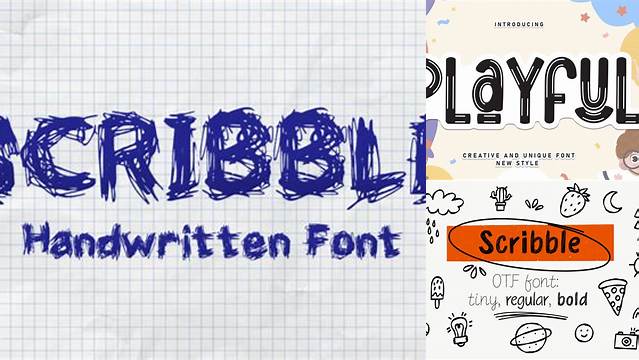
Scribble Fonts: Free Fonts For Playful Designs
Hey guys! Are you looking to inject some fun and whimsy into your design projects? Then you've come to the right place! In this article, we're diving deep into the world of scribble fonts, those delightfully imperfect typefaces that mimic the charm of hand-drawn lettering. These fonts are perfect for adding a personal touch to everything from invitations and posters to social media graphics and branding materials. We will explore what makes scribble fonts so special, different styles available, where you can find them, and how to use them effectively in your projects. So, grab a cup of coffee, settle in, and let's explore the world of scribble fonts!
What Makes Scribble Fonts So Unique?
Scribble fonts possess a unique charm that sets them apart from more traditional typefaces. Their defining characteristic is their hand-drawn aesthetic, which gives them a sense of authenticity and personality. Unlike the clean lines and perfect curves of formal fonts, scribble fonts embrace imperfections, with uneven strokes, playful quirks, and a slightly chaotic feel. This informality makes them ideal for projects that require a touch of humanity and warmth. Think about the last time you received a handwritten note – it likely felt more personal and heartfelt than a typed message, right? Scribble fonts evoke that same feeling, making them a powerful tool for connecting with your audience on an emotional level.
Another key element of scribble fonts is their versatility. While they are often associated with playful and informal designs, they can also be used to create a wide range of moods and styles. A bold, chunky scribble font might be perfect for a children's book or a quirky poster, while a delicate, flowing scribble font could add elegance to a wedding invitation or a feminine brand identity. The key is to choose a font that aligns with the overall tone and message of your project. Beyond just aesthetics, scribble fonts can also be incredibly effective for highlighting specific words or phrases. Their unique appearance naturally draws the eye, making them a great choice for headlines, call-to-actions, or any other text you want to stand out. In a world saturated with digital perfection, scribble fonts offer a refreshing dose of authenticity and human touch. They remind us that design doesn't always have to be flawless to be beautiful, and that sometimes, the imperfections are what make it truly special.
Exploring Different Styles of Scribble Fonts
The world of scribble fonts is vast and varied, offering a diverse range of styles to suit any project. To help you navigate this exciting landscape, let's explore some of the most popular categories:
- Casual Scribble Fonts: These are the quintessential scribble fonts, characterized by their relaxed, informal feel. They often feature rounded edges, uneven baselines, and a playful, handwritten quality. Casual scribble fonts are perfect for adding a touch of whimsy and personality to designs. They work well for invitations, social media graphics, blog headers, and projects targeting a younger audience. Think about using these for a birthday party invite or a fun announcement on Instagram!
- Messy Scribble Fonts: If you want to embrace the chaotic side of scribbles, messy scribble fonts are the way to go. These fonts feature intentionally rough lines, overlapping strokes, and a generally unpolished appearance. They can add a gritty, urban edge to your designs, making them ideal for posters, flyers, and album art. Imagine these fonts splashed across a band's concert poster, instantly grabbing attention with their raw energy.
- Elegant Scribble Fonts: Scribble fonts aren't just for casual designs; they can also be surprisingly elegant. These fonts feature delicate strokes, flowing lines, and a refined, handwritten quality. Elegant scribble fonts are perfect for adding a touch of sophistication and personality to invitations, wedding stationery, and feminine branding. Envision a wedding invitation adorned with a flowing scribble font, conveying both romance and a touch of unique charm.
- Bold Scribble Fonts: When you need your message to make a statement, bold scribble fonts are the answer. These fonts feature thick, heavy strokes that command attention. They're ideal for headlines, logos, and any other text you want to stand out. Picture a powerful headline in a bold scribble font, instantly drawing the reader's eye and conveying a sense of energy.
- Cursive Scribble Fonts: Cursive scribble fonts mimic the flowing strokes of handwriting, adding a personal and intimate touch to designs. They are perfect for adding a handwritten signature to your work, creating logos, or adding a personal touch to greeting cards. Imagine a handwritten note card with a heartfelt message penned in a cursive scribble font, adding warmth and authenticity.
No matter the style, understanding the nuances of each type of scribble font will empower you to select the perfect typeface for your project, ensuring your message resonates with the desired tone and impact.
Where to Find High-Quality Scribble Fonts
Now that you're excited about using scribble fonts, you're probably wondering where to find them. The good news is that there are numerous resources available, both free and paid, offering a wide variety of high-quality scribble fonts. Here are some of the best places to start your search:
- Font Foundries: Many independent font foundries specialize in creating unique and high-quality typefaces, including scribble fonts. Websites like MyFonts, Fontspring, and Creative Market are excellent marketplaces for browsing and purchasing fonts from various foundries. These platforms often offer extensive font families, giving you a range of weights and styles to choose from. Investing in a professional font from a reputable foundry ensures you're getting a well-designed and carefully crafted typeface that will look great in your projects.
Remember, the key to using scribble fonts effectively is to embrace their imperfections. Don't be afraid to experiment with different styles and pairings to find the perfect fit for your project. Consider the overall tone and message you want to convey, and choose a scribble font that aligns with that vision. And most importantly, have fun! Design is all about expressing yourself and connecting with others, and scribble fonts offer a unique and delightful way to do just that. So, go ahead and unleash your creativity with the magic of scribble fonts! They will help you to transform your designs from ordinary to extraordinary, making your work truly stand out.